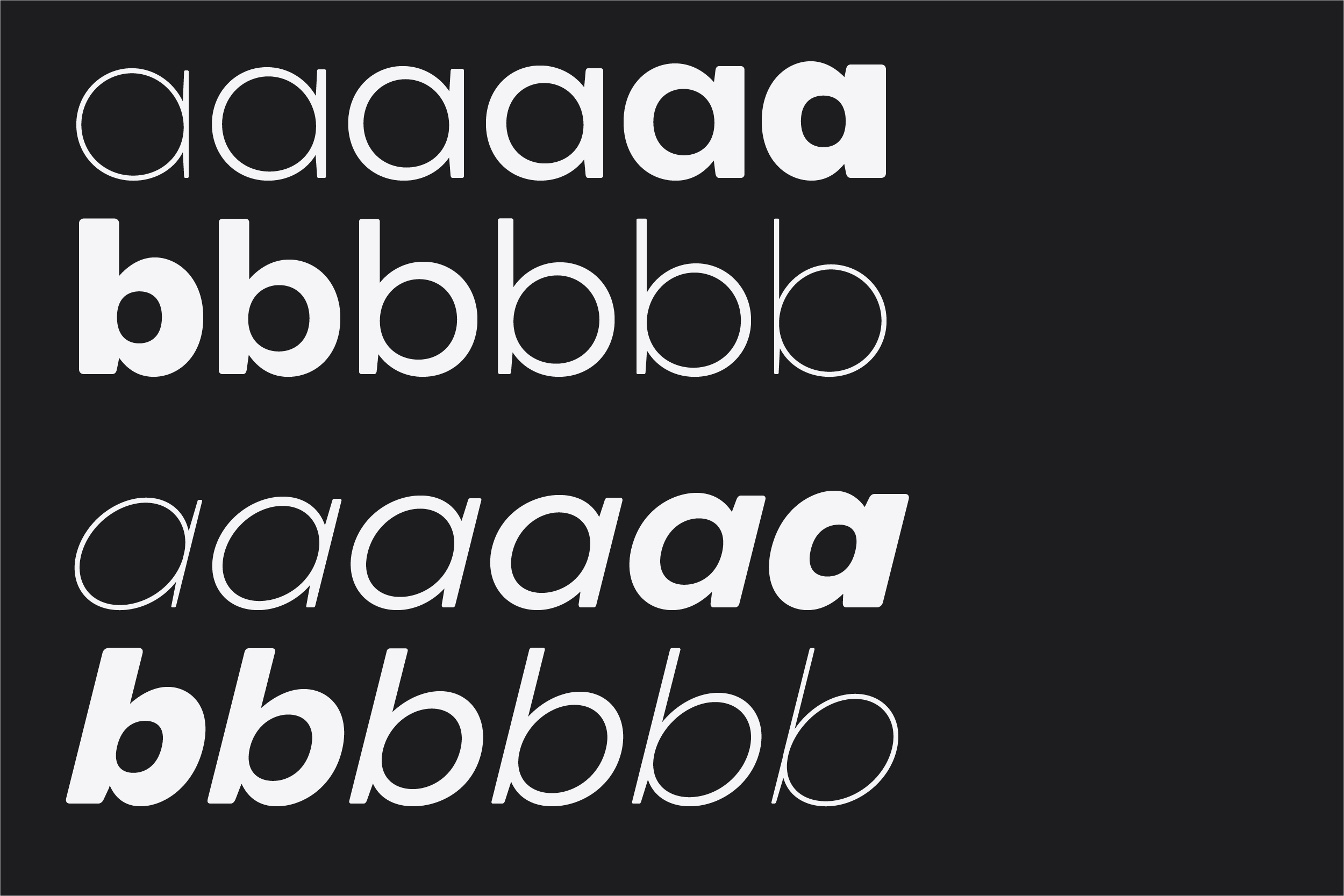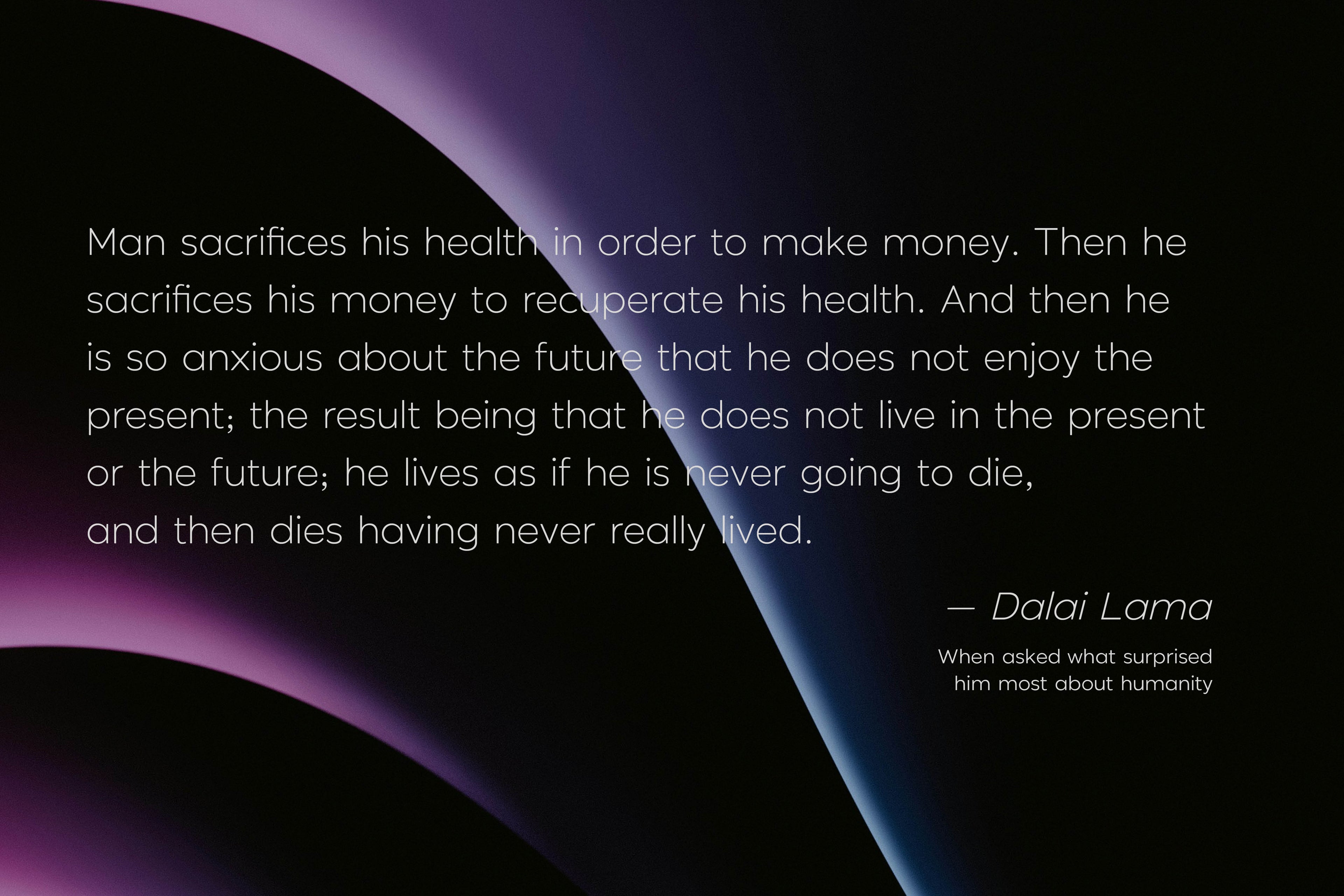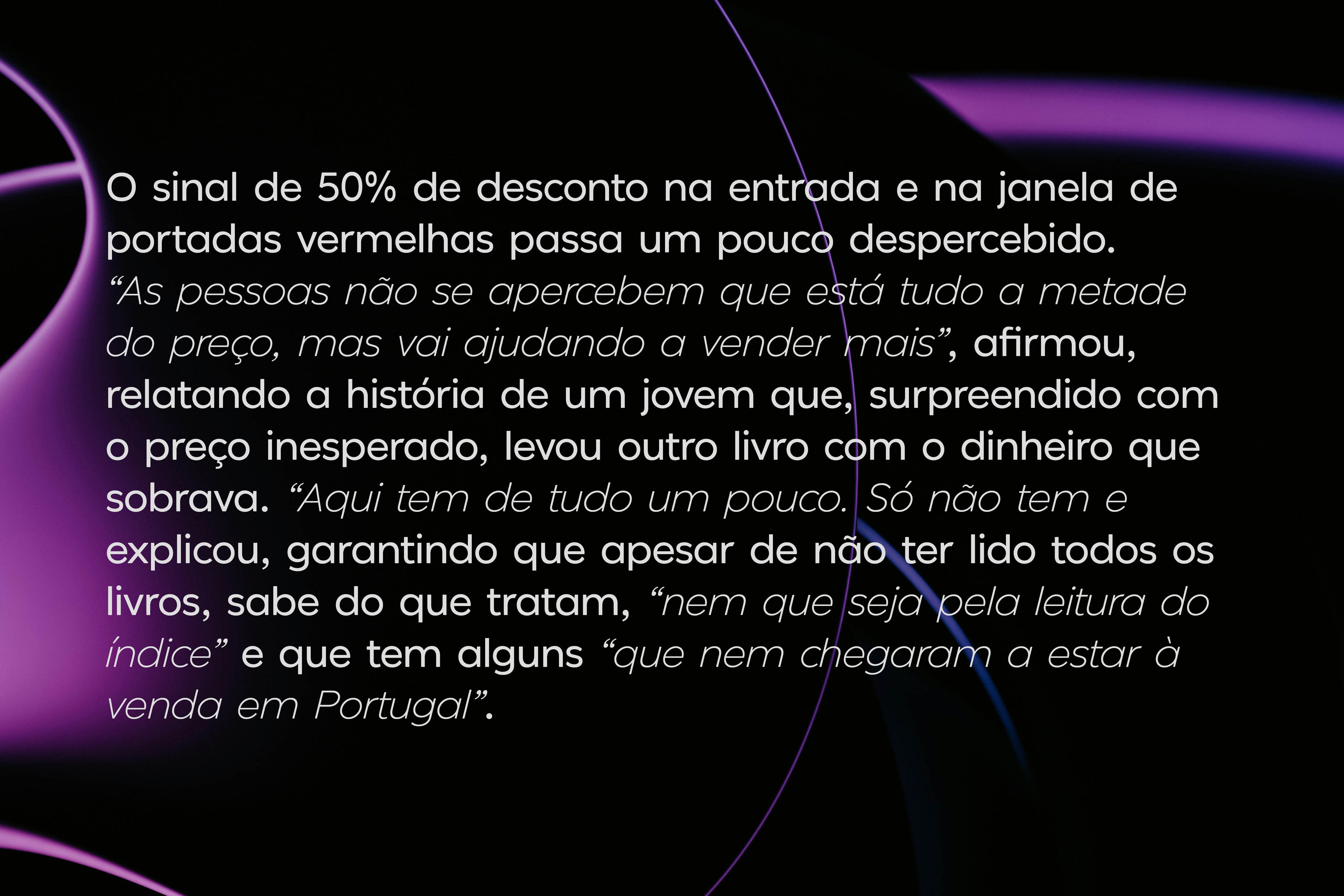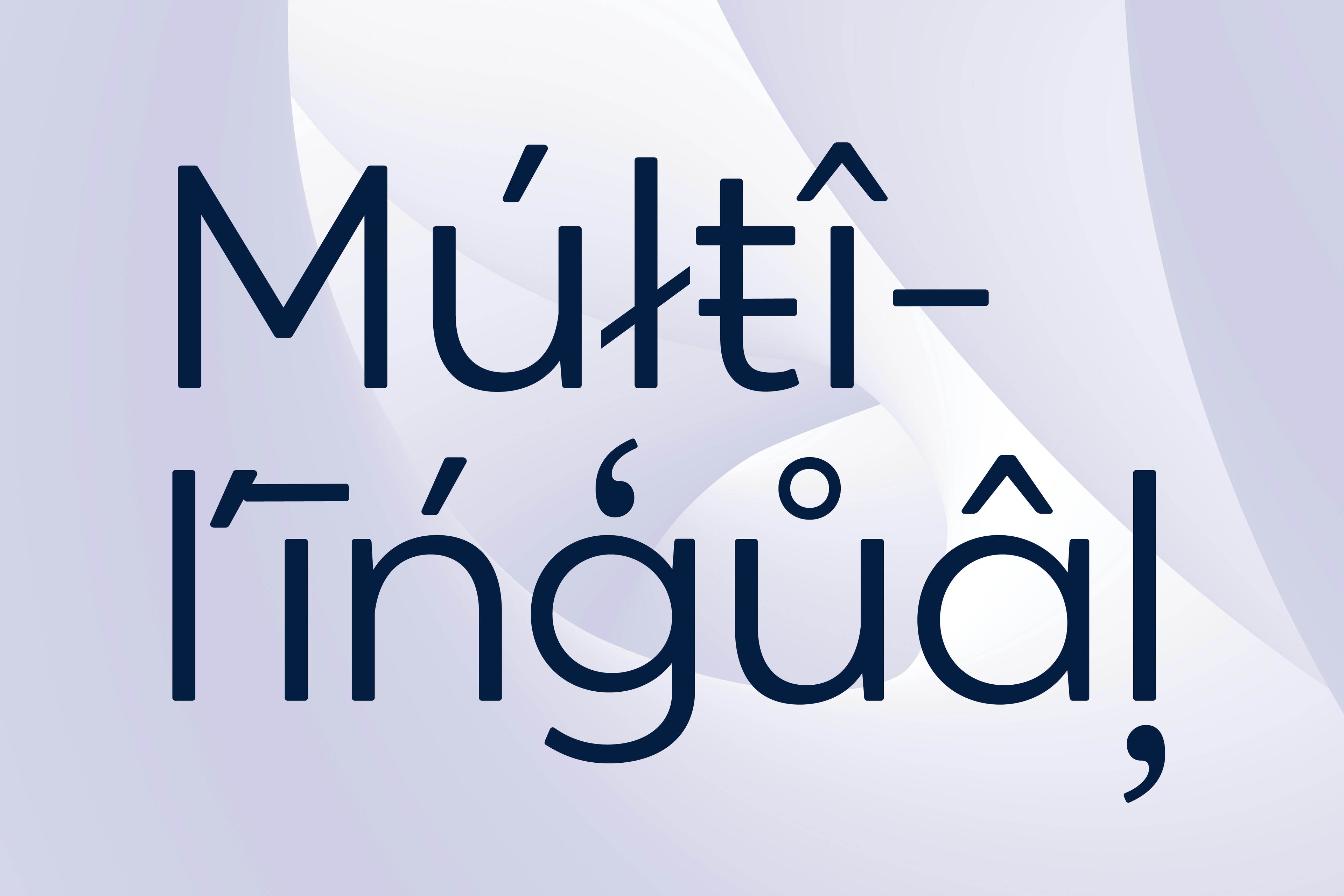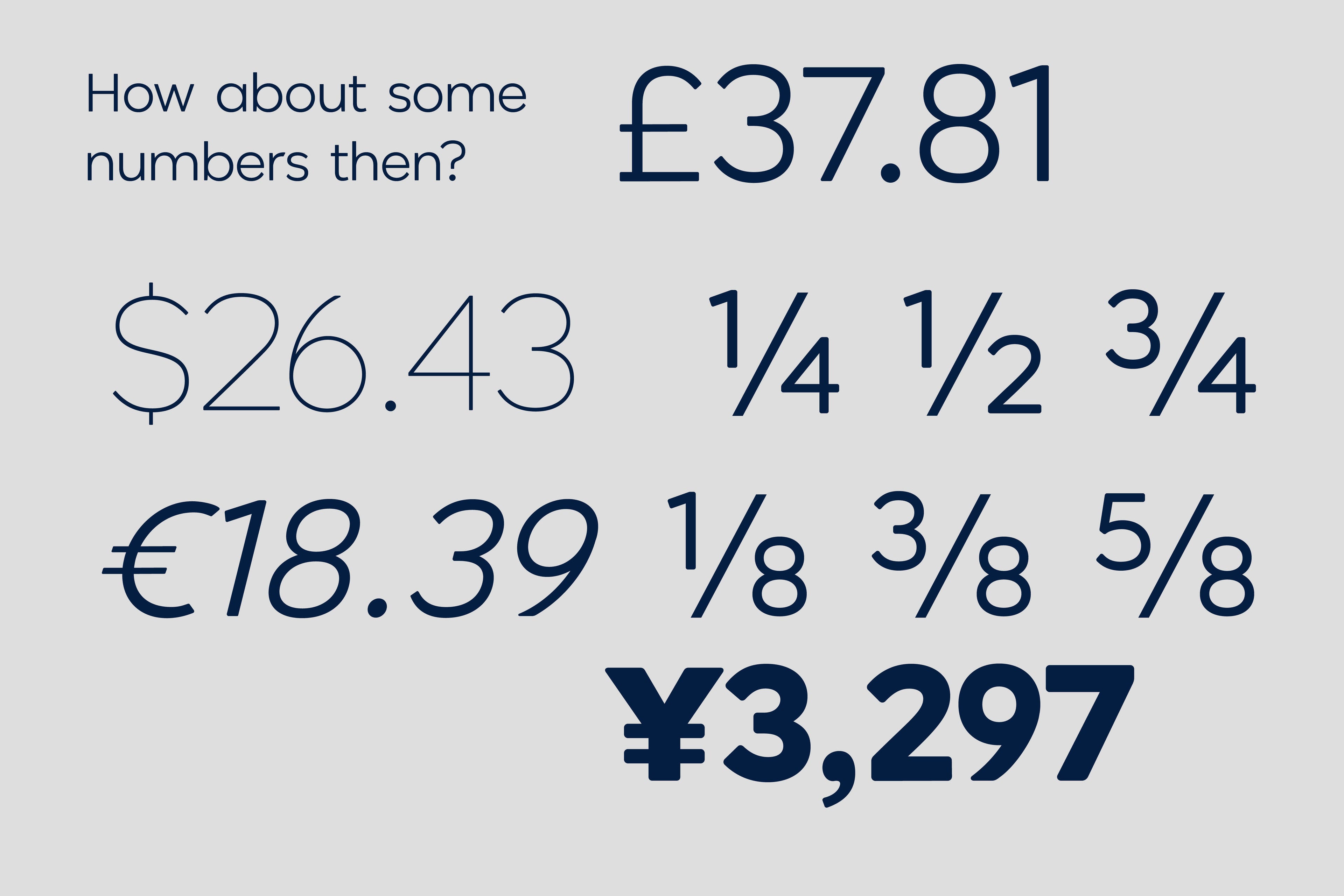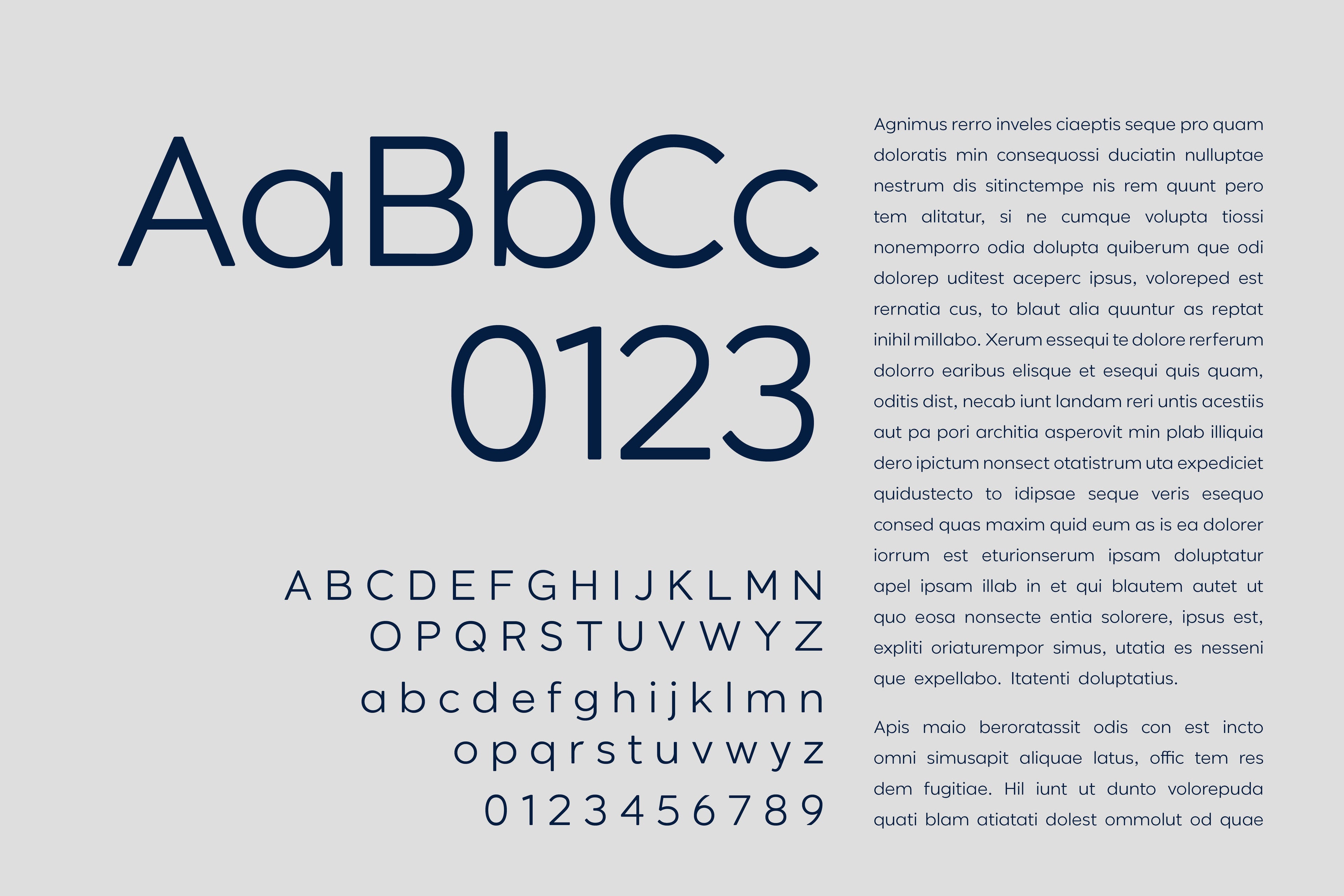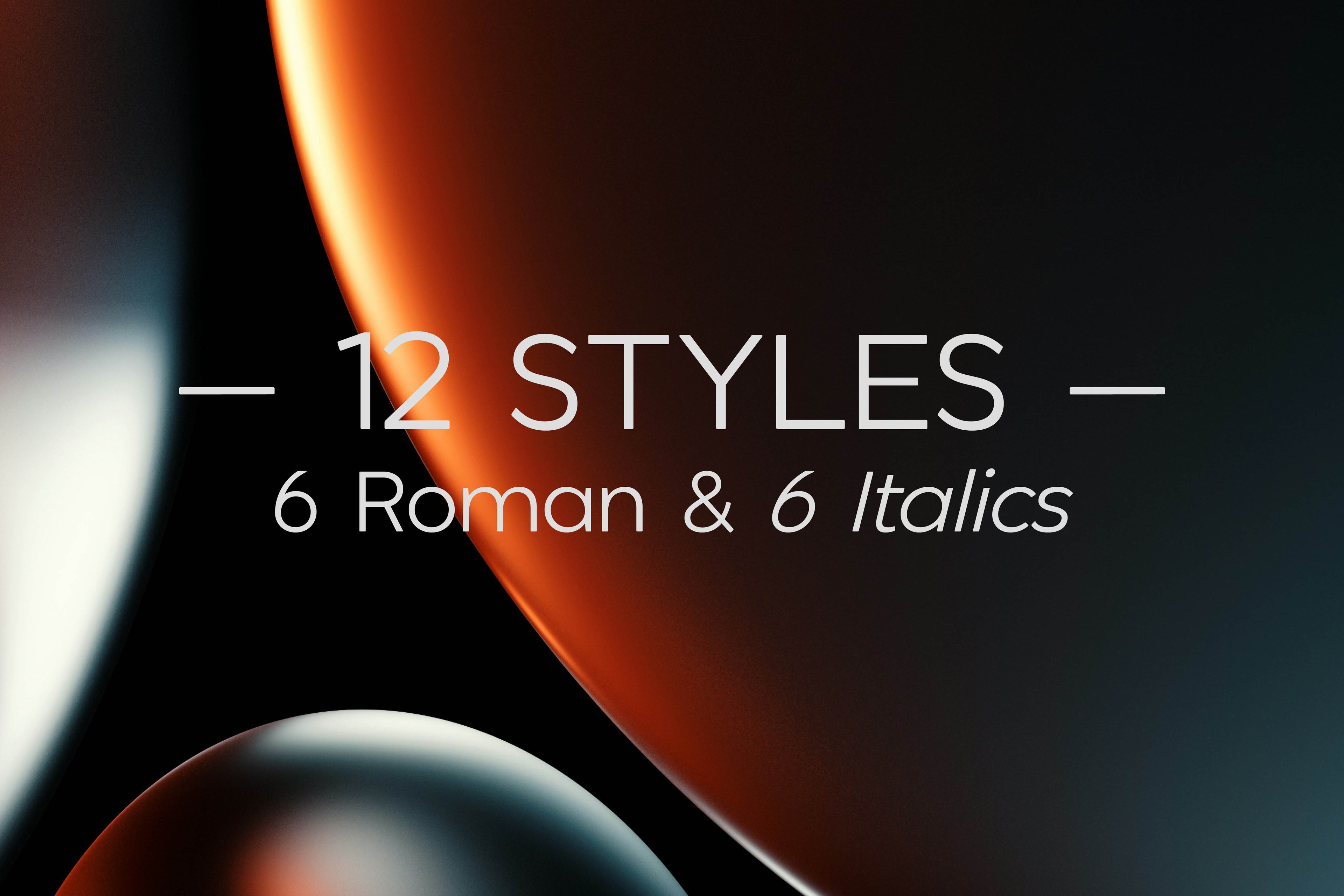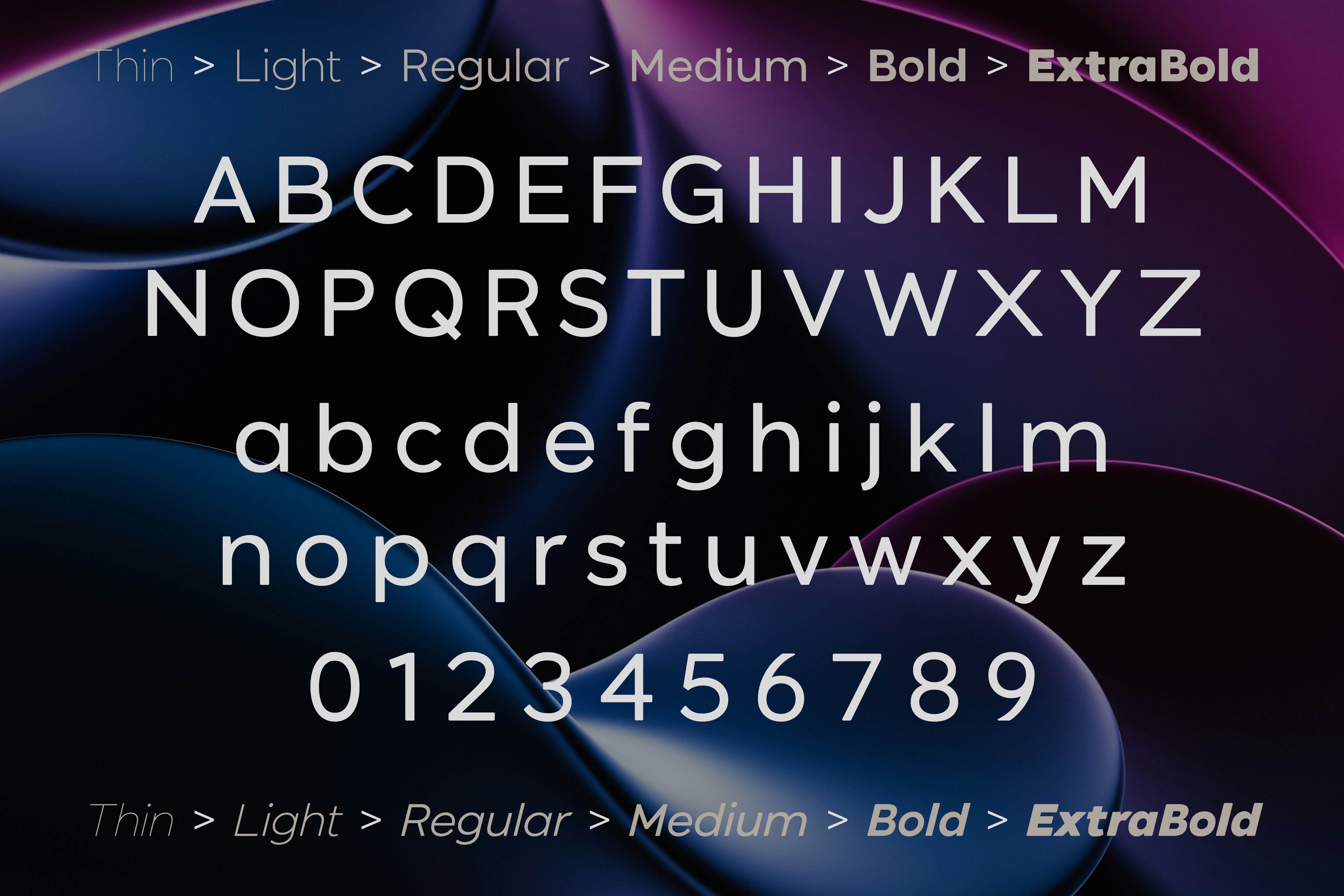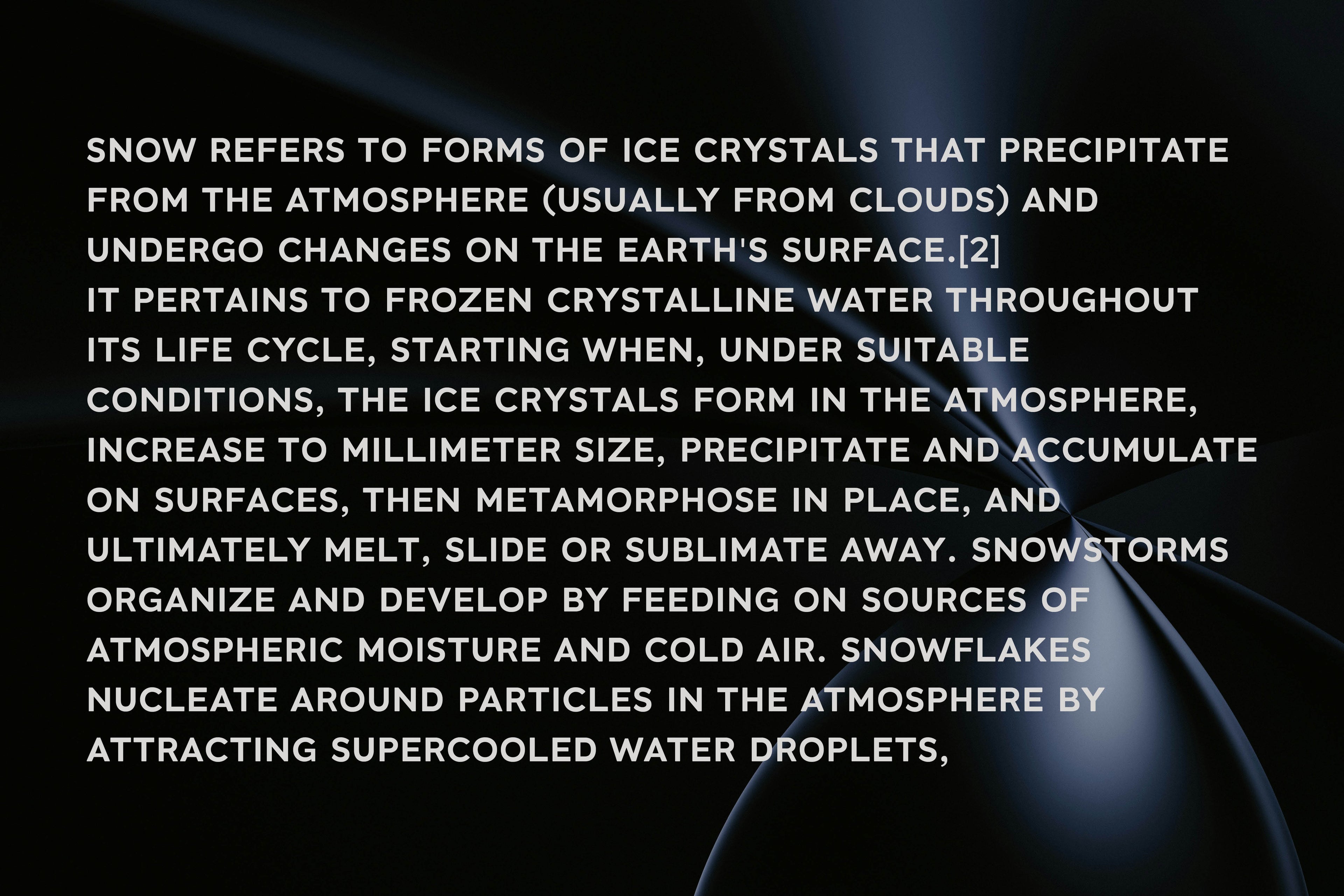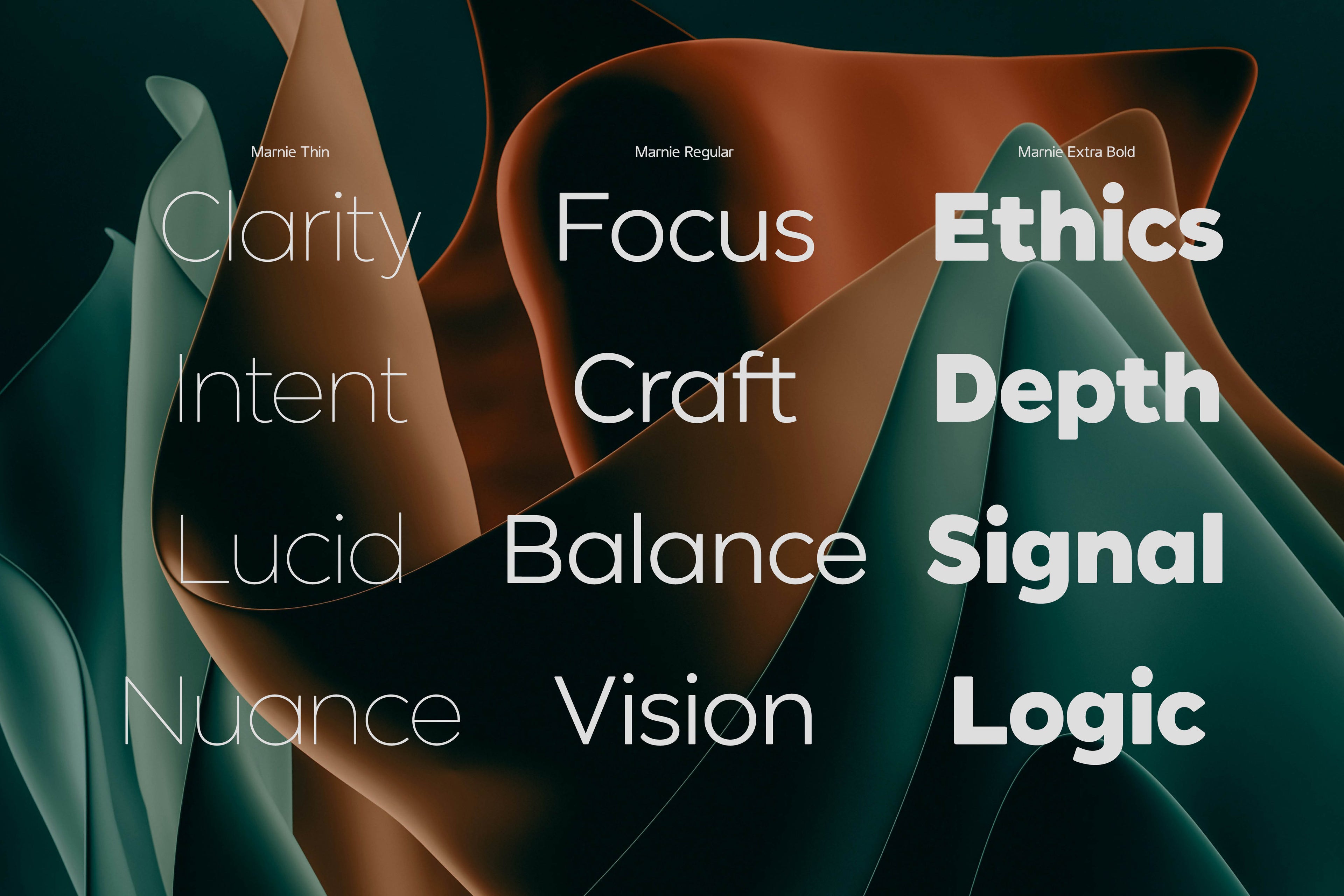
JT Marnie
The design is influenced by the geometric style sans serif faces which were popular during the 1920s and 30s. The JT Marnie font family is well suited for headlines and small blocks of text, particularly in advertising and packaging.